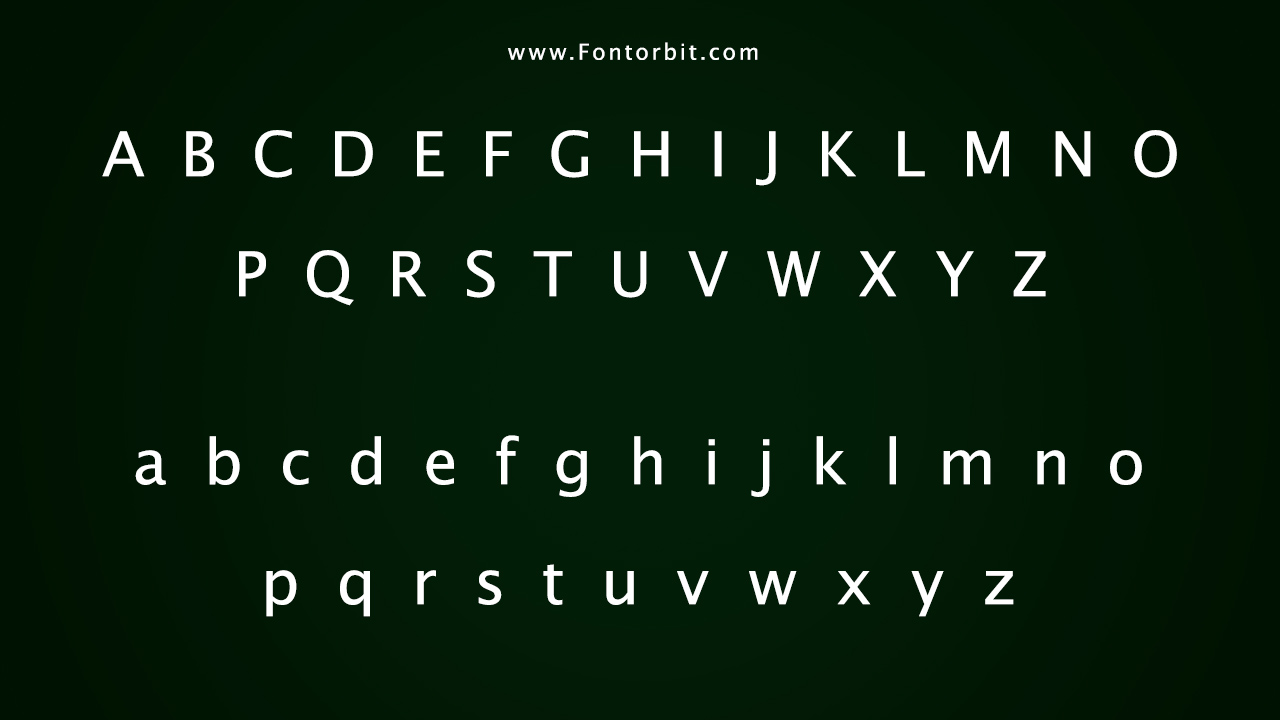
Lucida Sans is a popular humanist sans-serif typeface designed by Charles Bigelow and Kris Holmes. It was first released in 1985 and is part of the broader Lucida font family. This font is known for its clear, readable design, making it a great choice for both print and digital mediums.
The Lucida Sans font family offers various styles for better typography and is widely used for different purposes. Below is a list of fonts within the Lucida Sans family:
- Lucida Sans Regular
- Lucida Sans Italic
- Lucida Sans Demibold Roman
- Lucida Sans Demibold Italic
- Lucida Sans Typewriter Regular
- Lucida Sans Unicode Regular
- Lucida Sans Typewriter Oblique
- Lucida Sans Typewriter Bold
- Lucida Sans Typewriter Bold Oblique
Notable Uses Of Lucida Sans
Many settings use Lucida Sans where clarity and readability are essential. Here are some notable uses:
- User interfaces on operating systems like Microsoft Windows
- Documentation and professional reports
- Signage and branding for businesses
- Digital content, including websites and blogs
- Scientific and technical publications
Lucida Sans is a perfect font choice for both digital and print environments where readability is key. It works well in professional documents, user interfaces, and educational materials. The clean, simple design suits headings, logos, and web content.
If you’re looking for free alternatives to Lucida Sans, here are some similar fonts:
These alternatives offer similar readability and style, making them great substitutes for Lucida Sans in various design projects.
Lucida Sans stands out as a reliable and clear typeface for various uses. Its modern design and legibility have made it a top choice for professionals, businesses, and educational institutions. With several free alternatives available, you can achieve a similar look without sacrificing quality.
2.What Makes Lucida Sans Unique?
Its humanist design enhances readability on screens and in print.
3.Can I Use Lucida Sans For Websites?
Yes, it’s often used in web design due to its legibility.
4.Is There A Bold Version Of Lucida Sans?
Yes, Lucida Sans includes several bold styles.
5.What Software Includes Lucida Sans?
It’s often bundled with Microsoft Office and some operating systems.
6.Is Lucida Sans Suitable For Professional Documents?
Its clean design makes it ideal for formal and professional communication.
7.Can I Use Lucida Sans For Logos?
Yes, it’s a solid choice for logos thanks to its modern and clean look.
8.Does Lucida Sans Support Multiple Languages?
Yes, Lucida Sans Unicode supports various languages and scripts.